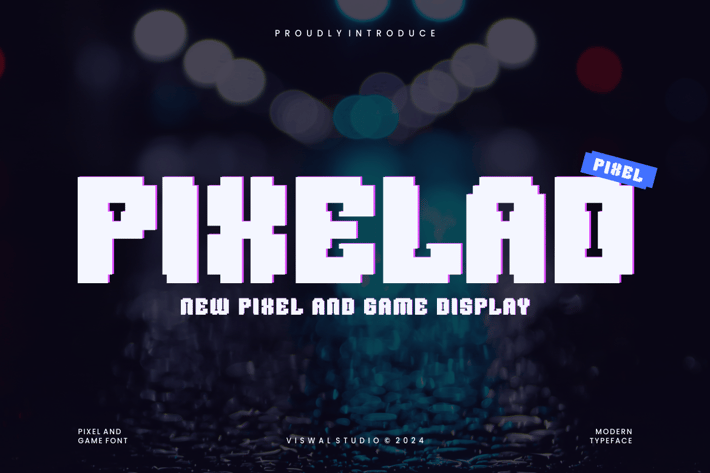
Pixelad - Pixel & Game Font
Presenting Pixelad - Font is suitable for badge, labels, logo, branding, magazine, poster and etc. Our fonts have Uppercase & Lowercase, Numeral & Punctuation, Multilingual support and Opentype Features. For Amazing designs you can mix with other fonts as a complement.